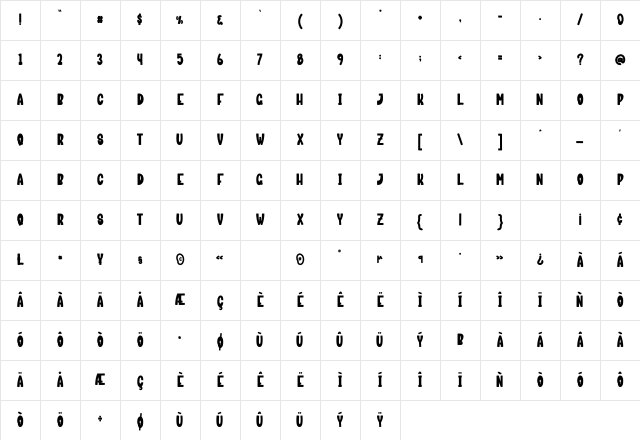
Garland Christmas Regular Free Font
Garland Christmas Regular
Design Context for Garland Christmas
Garland Christmas is a composed and adaptable typeface that performs quietly and consistently across a wide range of design contexts.